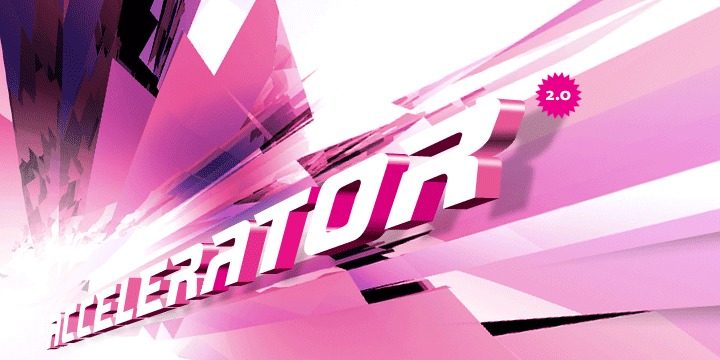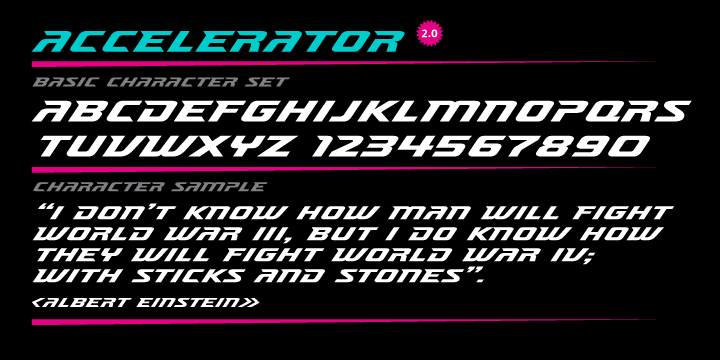
Accelerator is a display font published by Characters Font Foundry.
Accelerator is a custom made typeface for a clients’ package line. Since the product never hit the market, Accelerator has been made public. It’s a 100 procent power generator for the NXT generation of designers. Accelerate your design to the NXT level.